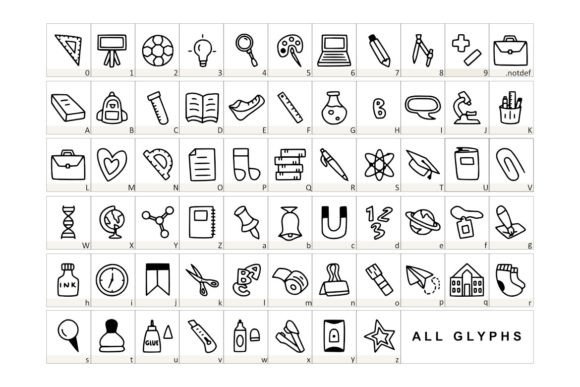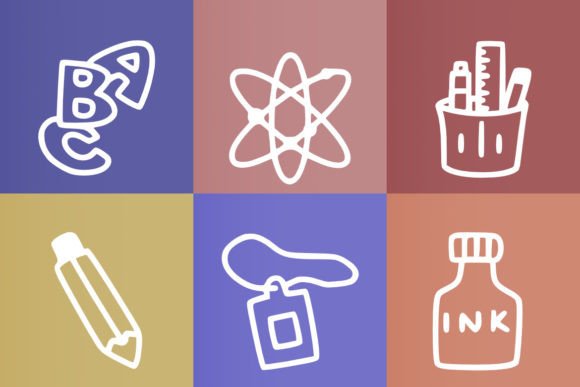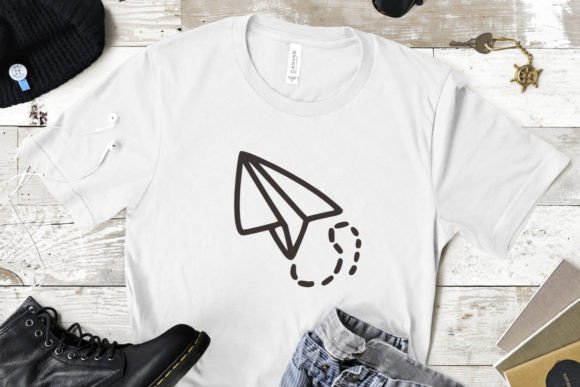
Introduction to Smart Kid Font
Do you remember the excitement of rummaging through your childhood craft box, overflowing with stickers, colorful markers, and quirky font sets? For many designers, that spark of creativity is still alive and well, guiding their work on high-quality projects. Whether you’re working on a fun sticker design for a kid’s birthday party or creating apparel graphics for a trendy brand, you need a versatile and engaging design resource that brings your ideas to life.
Enter the Smart Kid Font, a delightful dingbats font that’s perfect for a wide range of creative projects. With its playful characters and transparent background, this font is a valuable addition to any designer’s toolkit. From posters and t-shirts to cards and stickers, the Smart Kid Font is sure to add a touch of whimsy and fun to your work.
Key Features of Smart Kid Font
- High-quality design resource suitable for creative projects, including educational materials and children’s books.
- Unique, playful characters with a transparent background, allowing for easy customization and layering in design projects.
Honest Review: Smart Kid Font
As a designer, I’m always on the lookout for high-quality design resources to elevate my creative projects. The Smart Kid Font is one such resource that caught my attention recently. Here’s my honest review of this font.
- ✨ The font is highly customizable, with a wide range of styles and weights available. This makes it perfect for creating engaging headings and titles.
- ✨ The transparent background feature is a nice touch, allowing me to easily layer the font over images and other design elements.
- ⚠️ The font could benefit from more extensive language support, as it currently only supports a limited range of languages.
- ⚠️ Some users may find the font’s playful style to be too childish or cutesy for certain design projects.
Overall, the Smart Kid Font is a solid design resource that I’d definitely recommend to designers working on creative projects. While it has some limitations, its high quality and customization options make it a valuable addition to any design library.
Smart Kid Font is perfect for a variety of projects, including children’s book illustrations, educational materials, and advertising campaigns. Its high quality and transparent background make it an ideal choice for any design requiring a professional and creative touch.